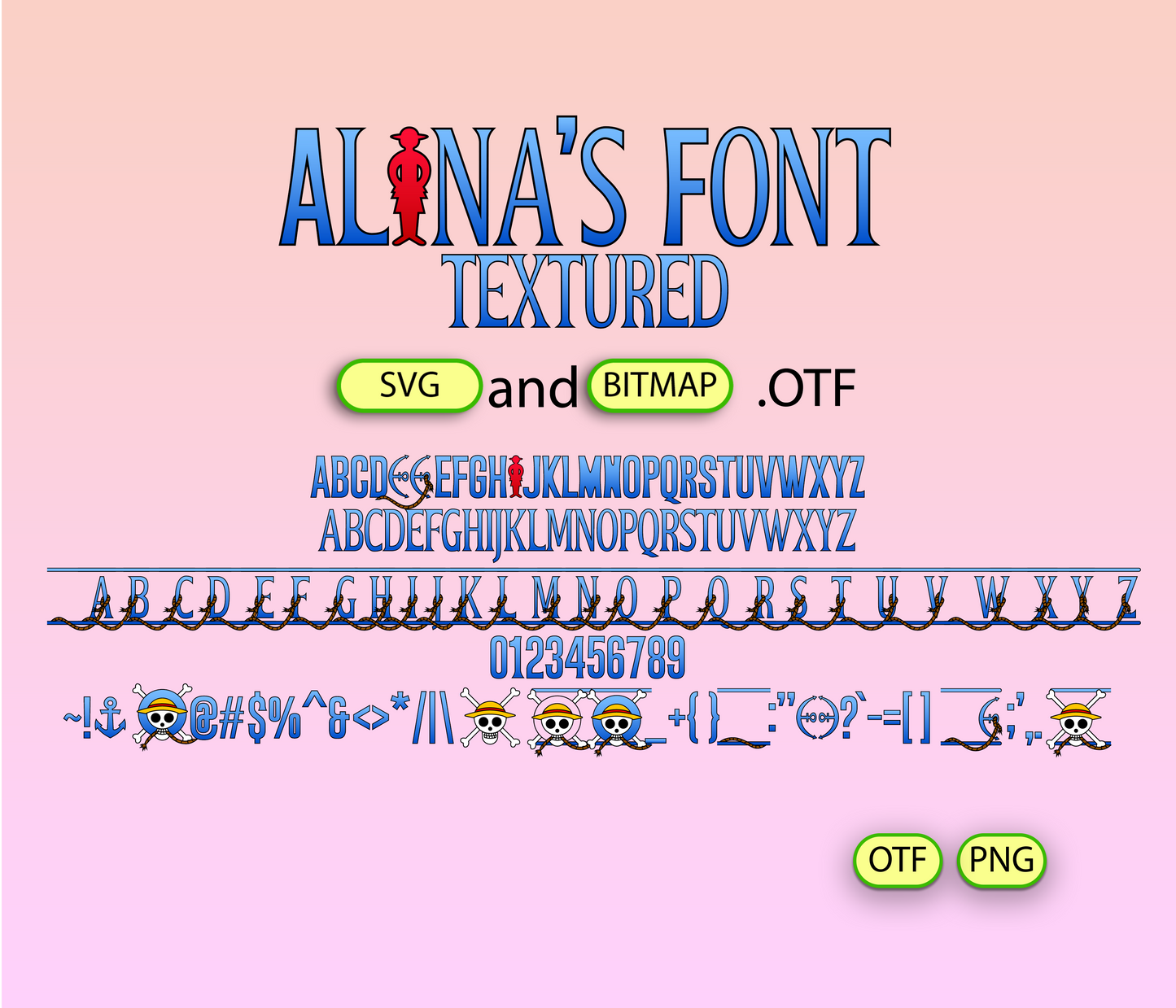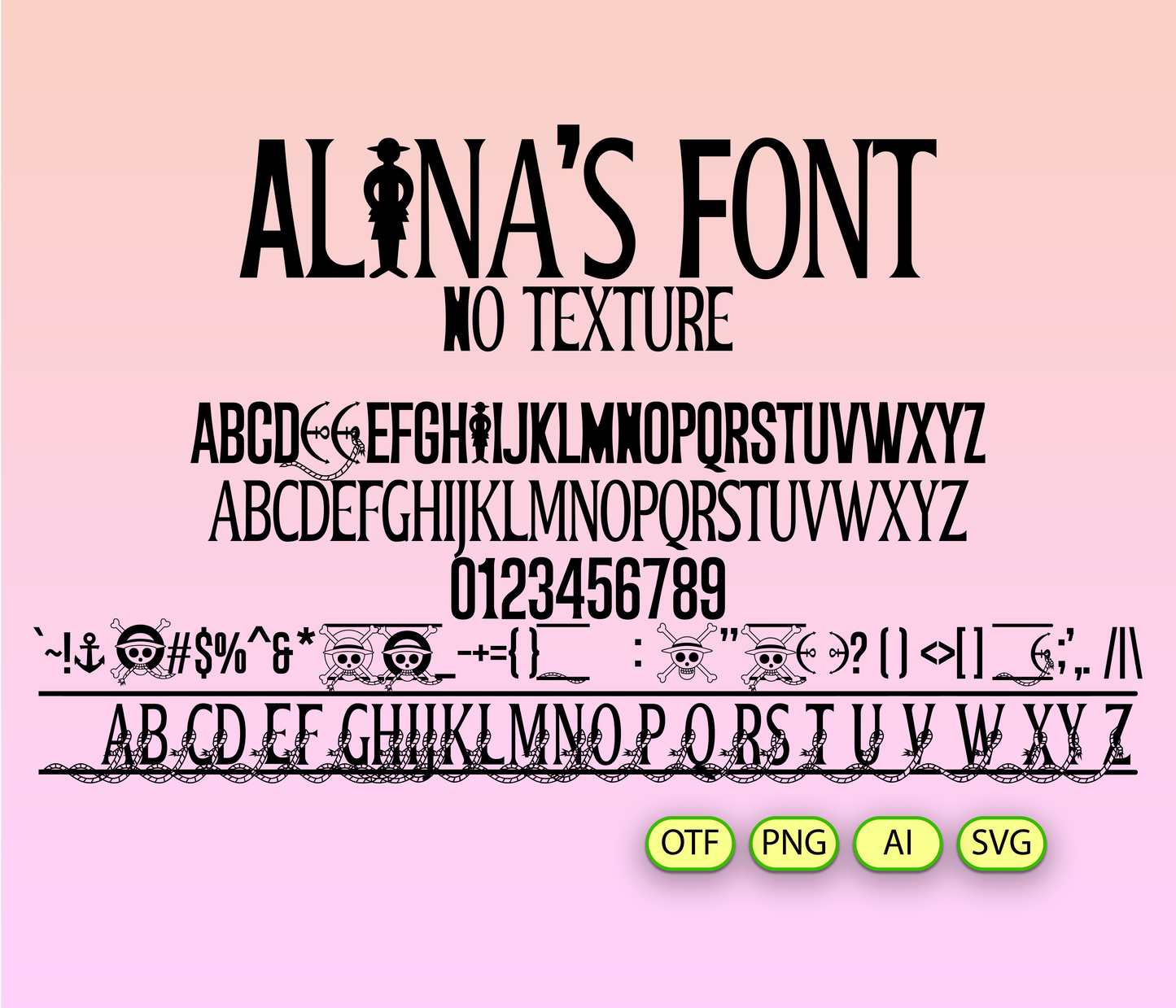
Grand Pirates Font Textured Ocean Adventure Treasure
Step into the adventurous world of high seas exploration with our Grand Pirates font, capturing the essence of legendary treasure hunts and oceanic adventures. Perfect for pirate-themed parties, adventure events, manga designers, and creative professionals, this font brings the bold, adventurous energy of seafaring crews and treasure hunting to your projects. Create exciting invitations, nautical merchandise, or digital content with the daring, spirited essence of pirates sailing the grand oceans in search of ultimate treasure.
Our Grand Pirates font features bold, weathered letterforms with nautical flourishes reflecting the rugged aesthetic of ocean adventures and pirate expeditions. The characters blend maritime typography with adventurous elements, creating perfect fusion of seafaring culture and treasure hunting excitement.
Our Grand Pirates font includes textured and non-textured variants, ensuring compatibility with all software, including Canva. This feature allows easy incorporation into designs for users of all skill levels.